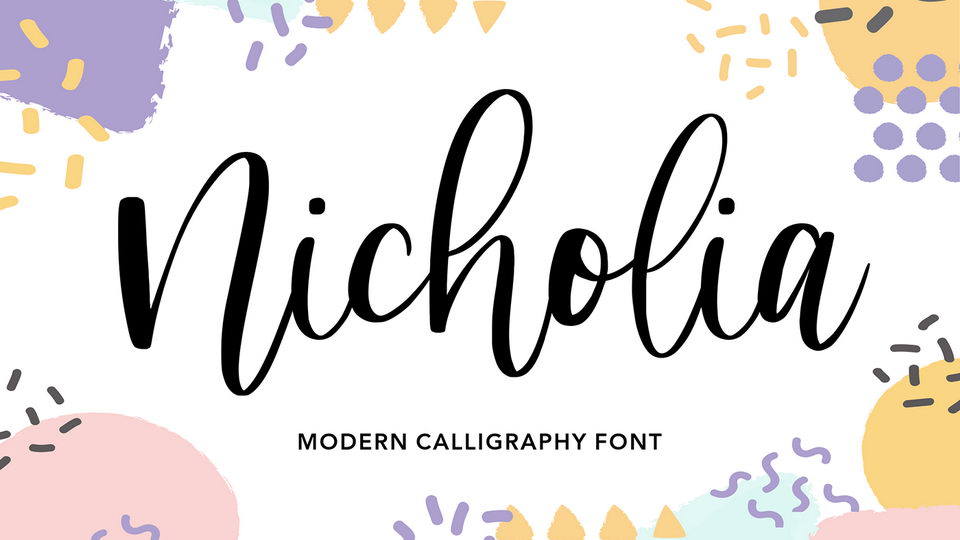
Download Nicholia font, a beautiful modern calligraphy script. Nicholia is perfect for product packaging, branding project, megazine, social media, wedding, or just used to express words above the background.